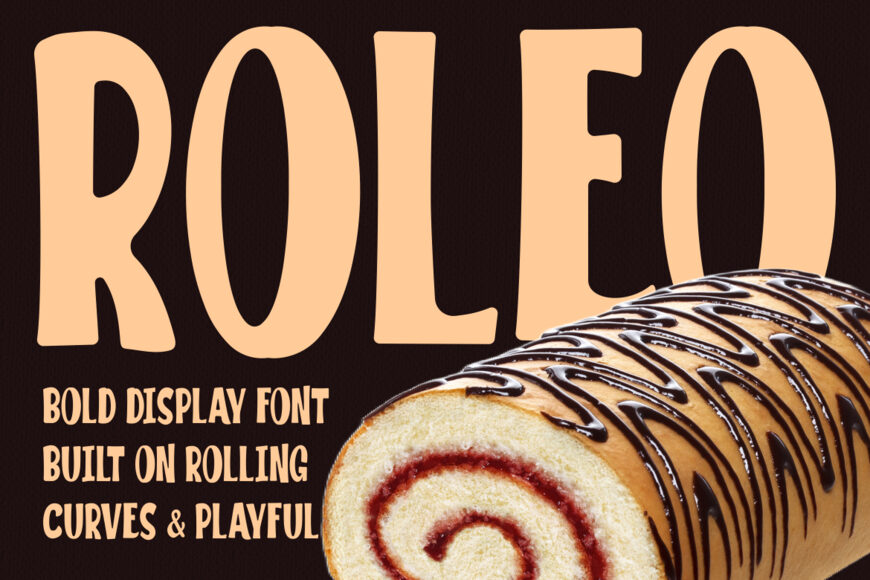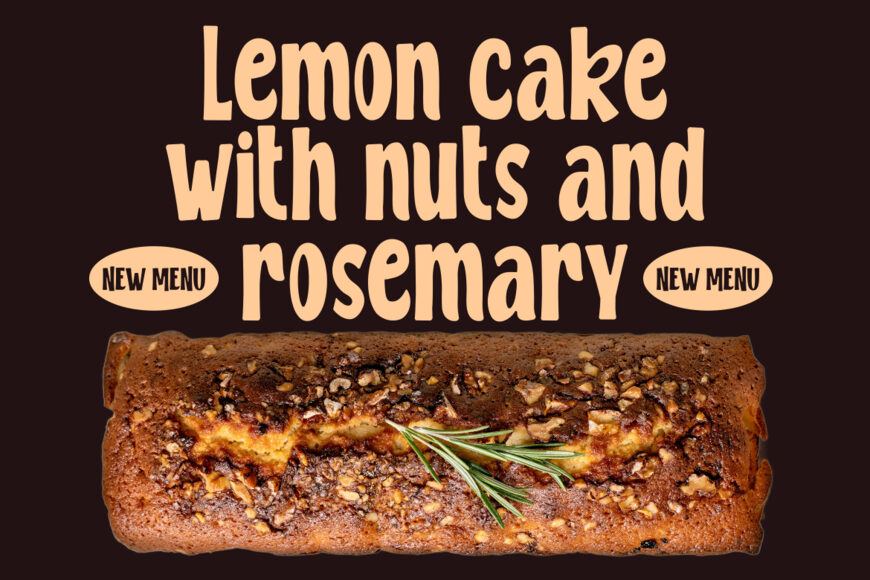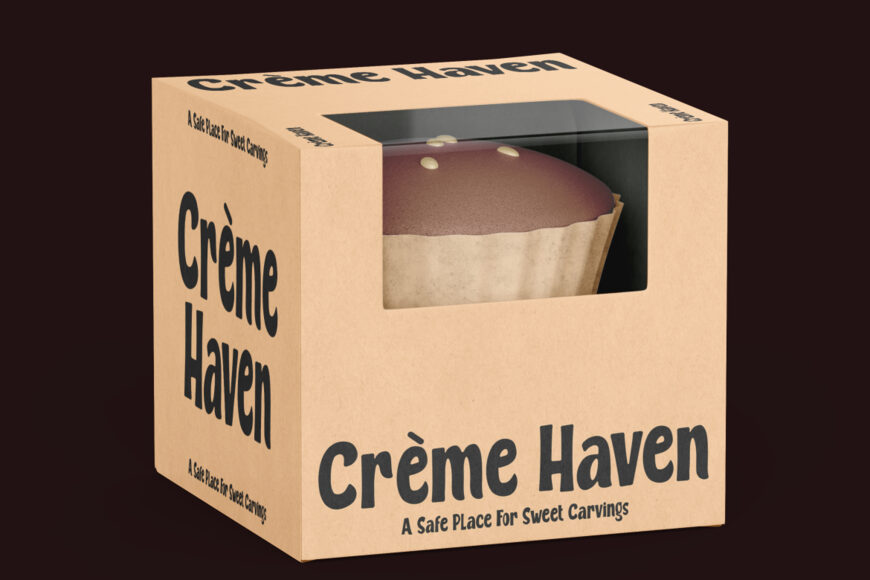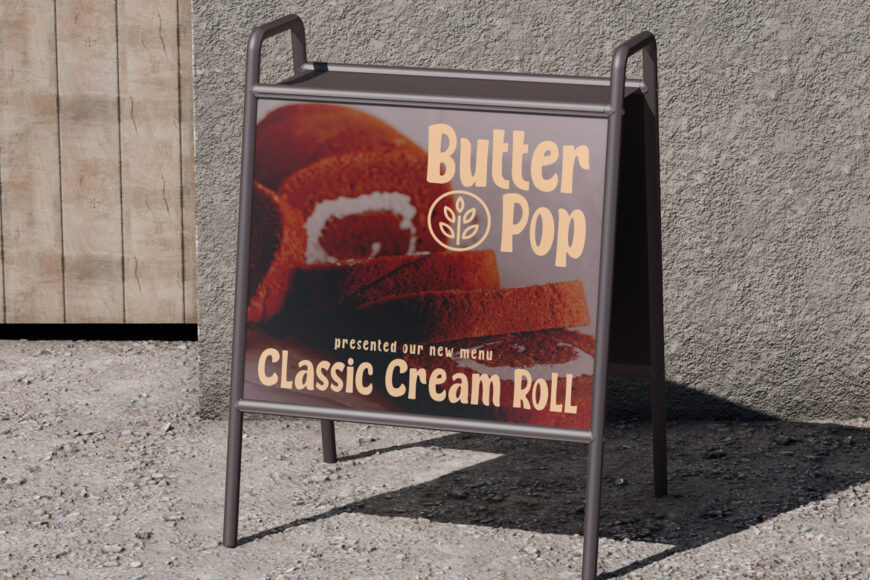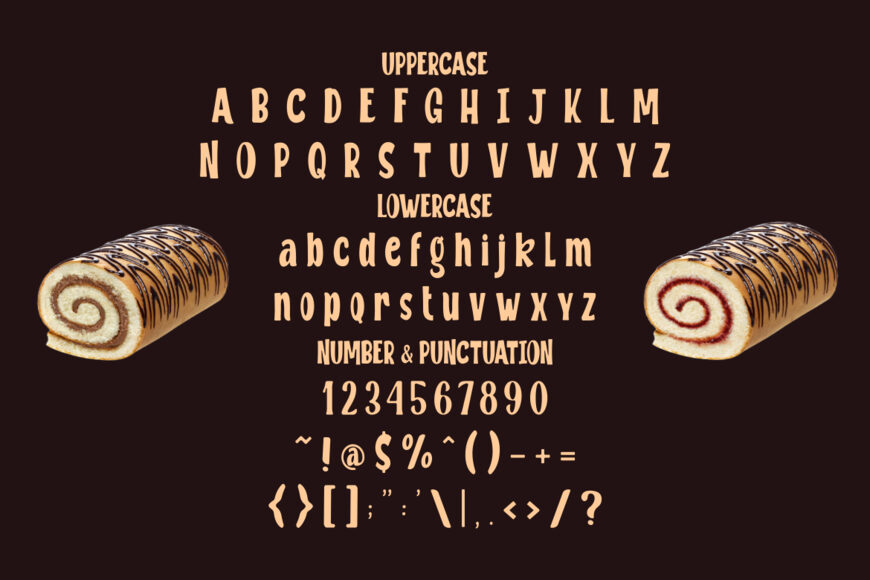
Roleo font features bold, rounded letterforms with a wide, softly curved appearance. Its consistent strokes give headlines immediate impact, while relaxed spacing keeps layouts airy and readable. Slightly tall proportions and smooth corners create a friendly, contemporary personality without feeling childish.
Ideal for bakeries, cake shops, bread brands, dessert businesses, cafés, pastry studios, food labels, and other welcoming food-focused identities. Use it for logos, packaging, posters, advertisements, menus, invitations, stickers, book covers, magazine titles, greeting cards, and digital branding.